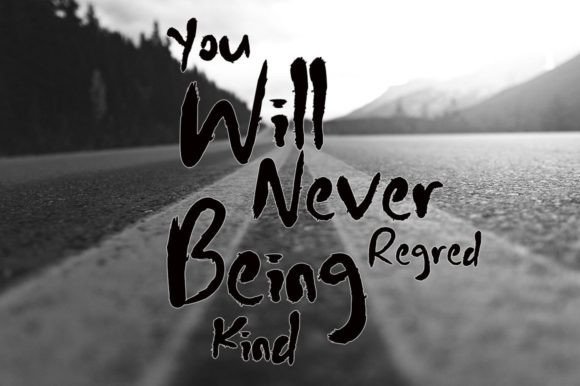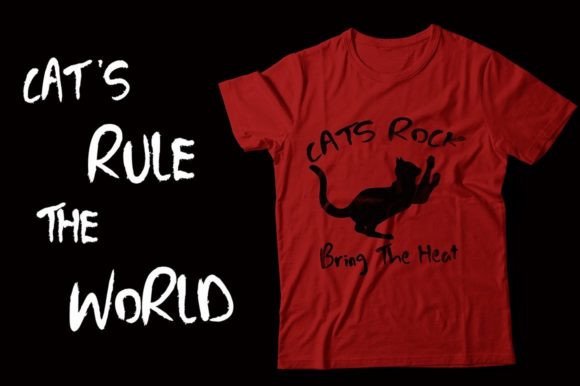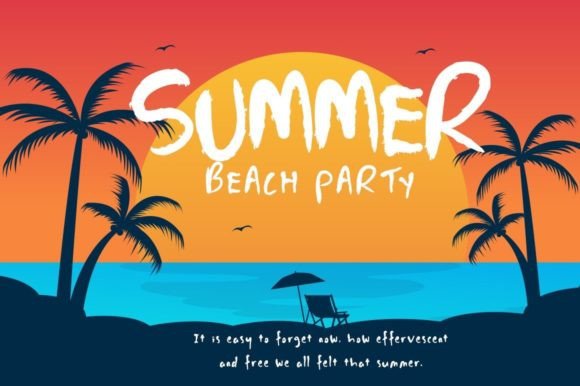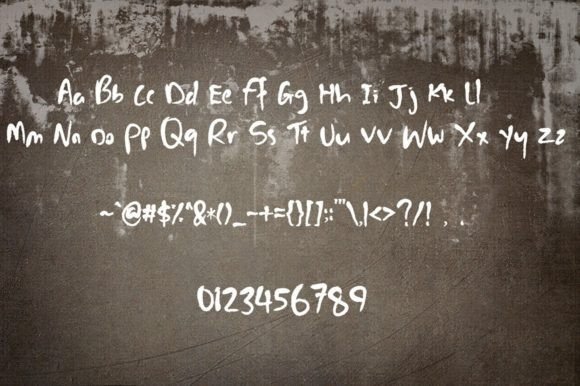
About Spring Time Font
“Spring Time” is a fun and quirky handwritten font that brings a playful and versatile style to a wide range of creative ideas. With its trendy and whimsical design, this font is a confident addition to your projects, promising results that you will love.
The fun and quirky qualities of “Spring Time” make it suitable for a variety of design applications. Whether you’re working on social media graphics, branding materials, posters, or any other creative project, this font adds a lively and energetic vibe to your text.
The versatility of “Spring Time” lies in its ability to adapt to different design contexts. Its handwritten and quirky style can bring a sense of personality and individuality to your creations, making them stand out with a trendy and modern flair.
Consider confidently adding “Spring Time” to your projects when you want to infuse a fun and youthful energy. Its playful handwritten design can enhance the visual appeal of your designs, making them more engaging and memorable.
In essence, “Spring Time” is more than just a font; it’s a creative tool that brings a sense of joy and quirkiness to your projects. Embrace its trendy and versatile style to create designs that capture attention and leave a lasting impression.